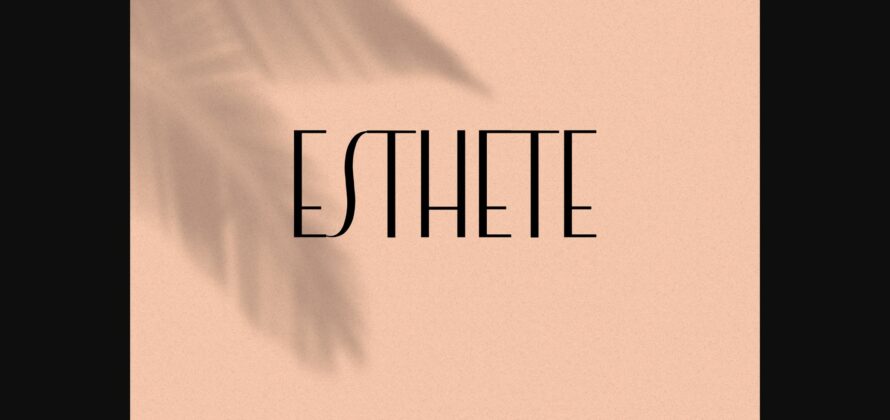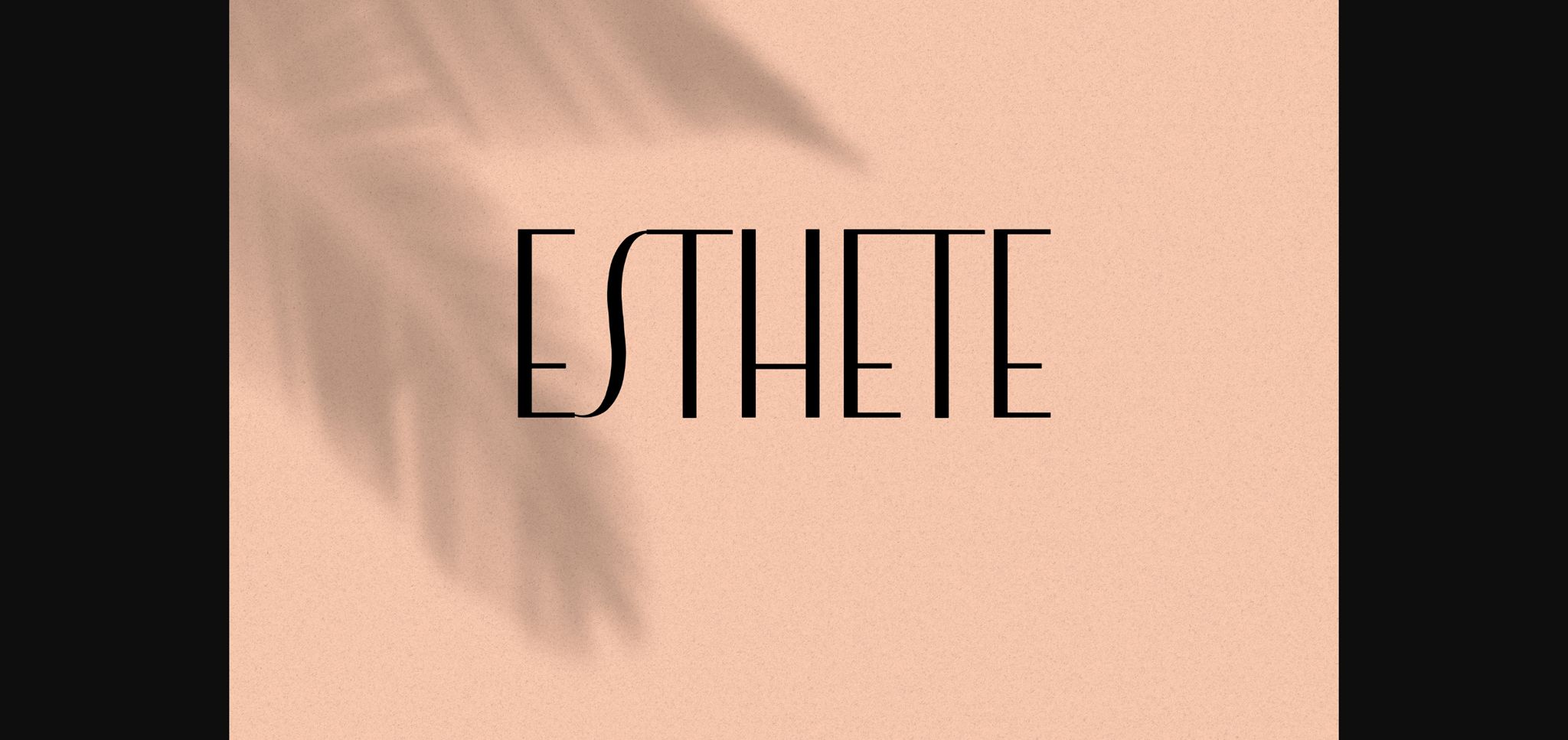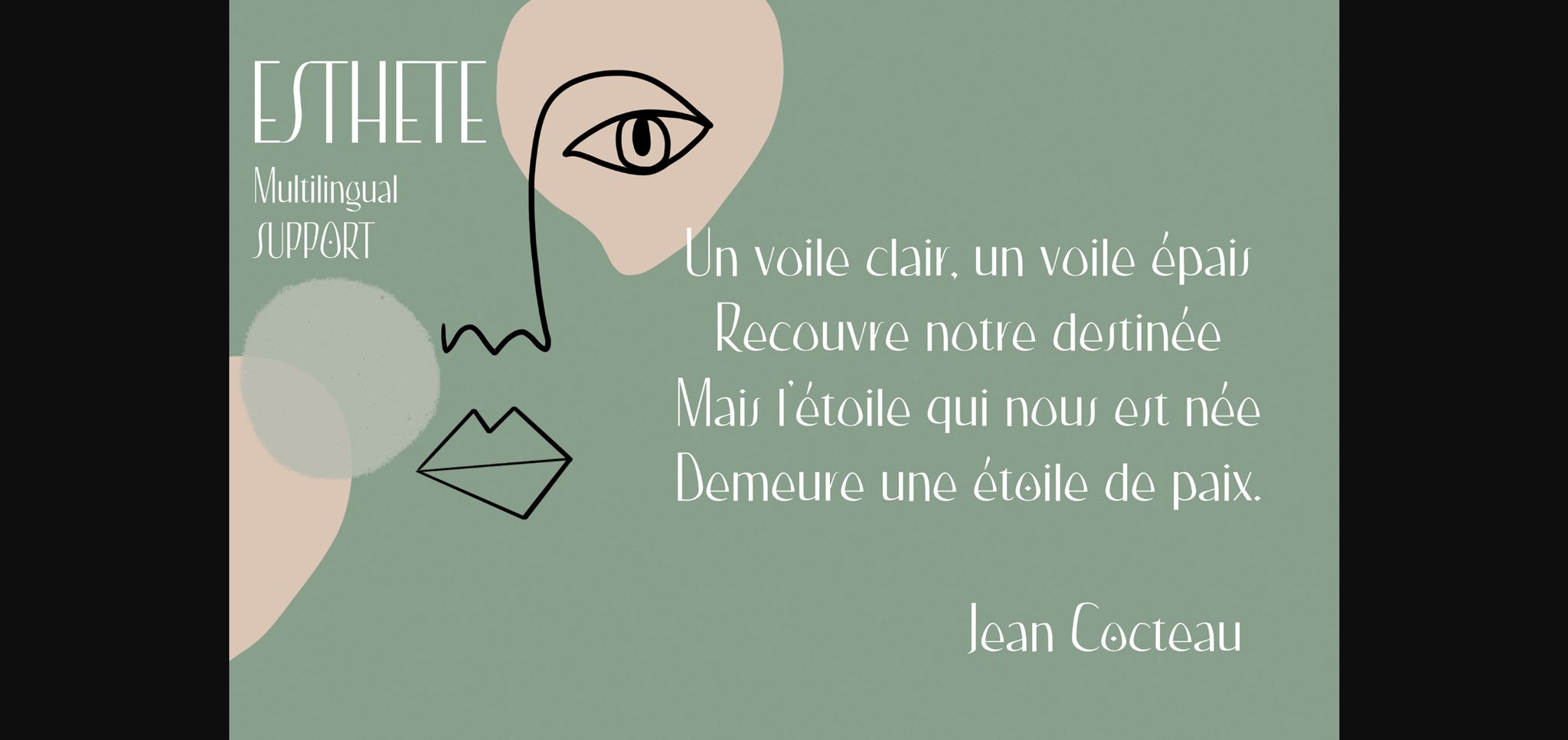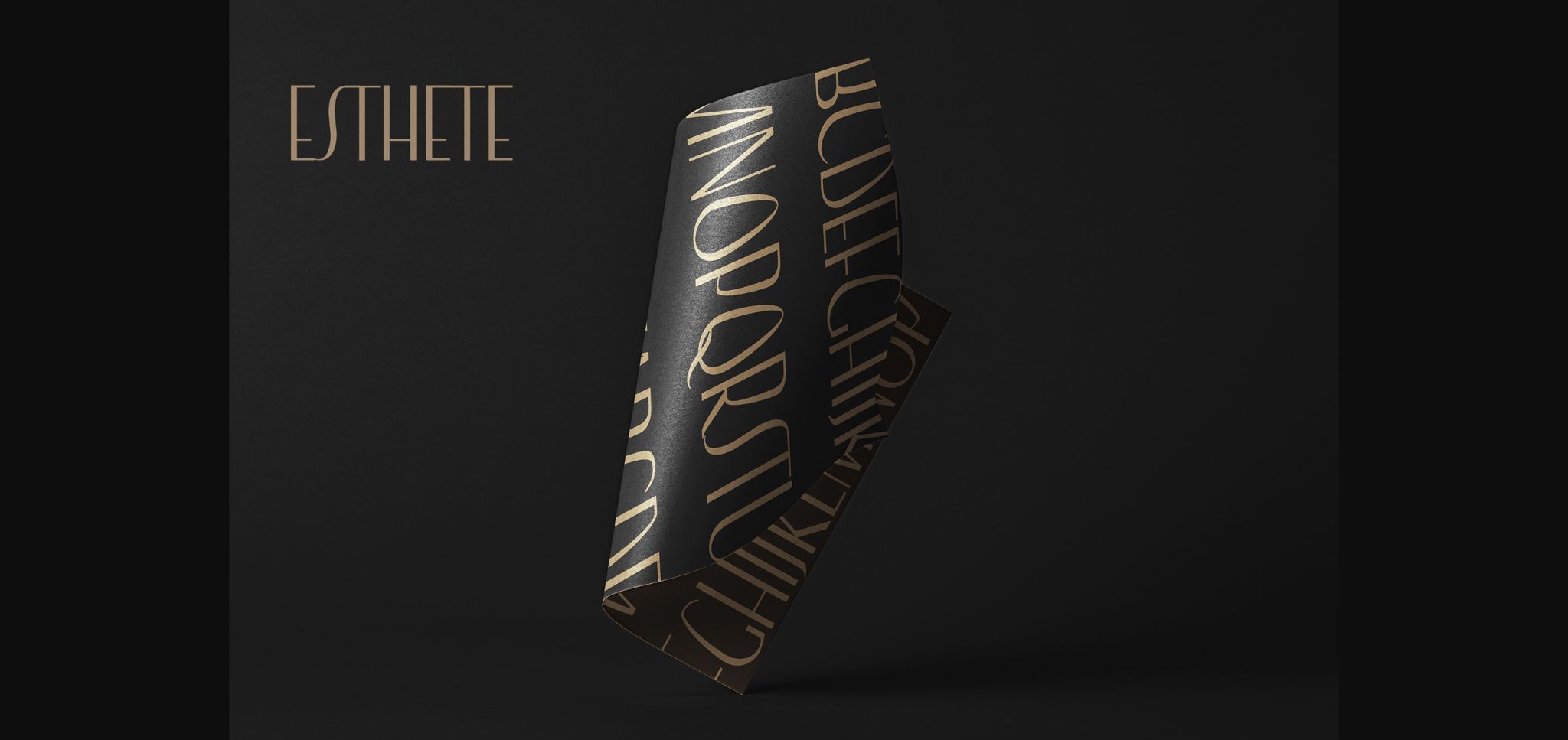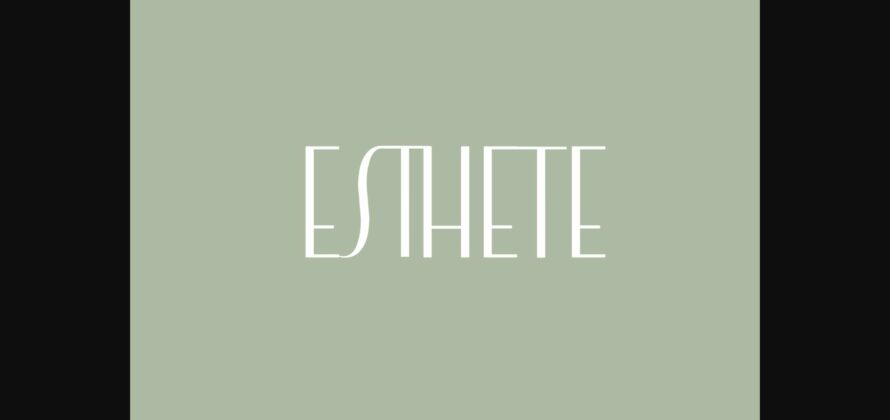
Esthete Font
About Esthete Font
Esthete is an elegant sans serif font. It has an original and stylish look that will add a special touch to your designs. Use it for quotes, magazines, invitations, and more!